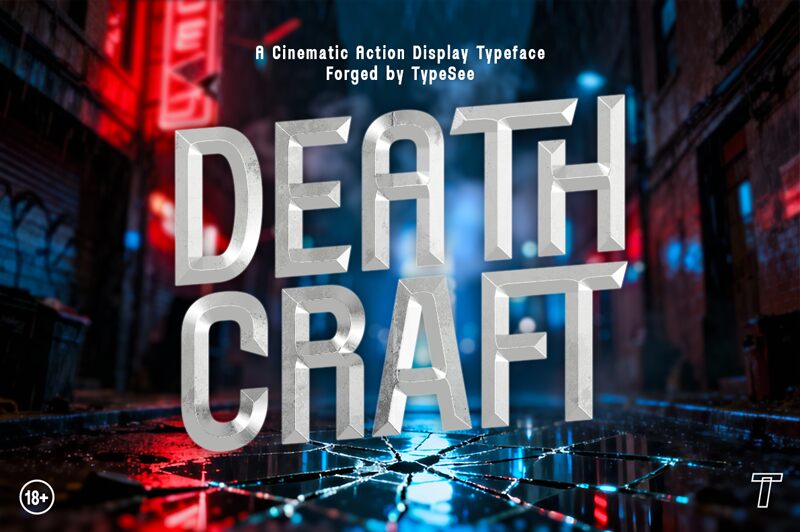
Death Craft font is a free sans serif font created by Typesee Type Foundry, drawing inspiration from industrial and vintage aesthetics. This font stands out with its bold geometric shapes, dynamic angles, and a strong presence that evokes mystery and a cinematic feel. Its futuristic and commanding appearance makes it suitable for projects that require an element of intrigue and intensity.
With its distinctive style, Death Craft is an excellent choice for movie posters, music album covers, book titles, video game interfaces, billboard advertisements, apparel designs, website headers, branding materials, event flyers, and tech-related graphics. Its versatility ensures it complements a wide array of creative projects.